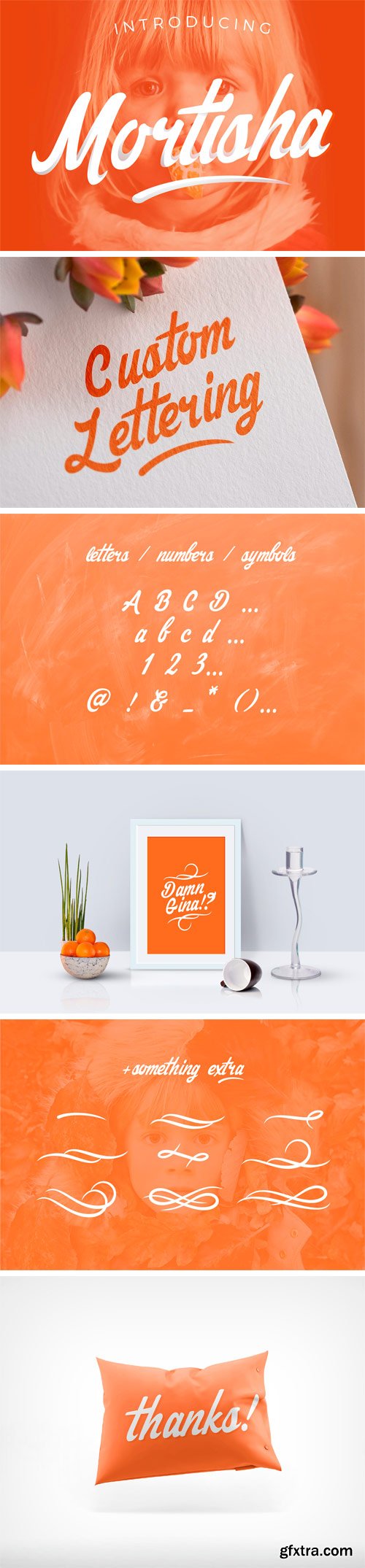
Introducing, Mortisha Script. A unique personalized handmade font that has interesting flowing feel to it which is great for logotype / wordmark, posters, badges , headlines, apparel, cards & invitations, etc. The font comes with Swashes created to complement its movement. Mortisha Script is a young & attention demanding font that would be a great addition to your display font collection. Both the font and the swashes come in .OTF and .TTF formats so it is compatible with whatever design applications you use.